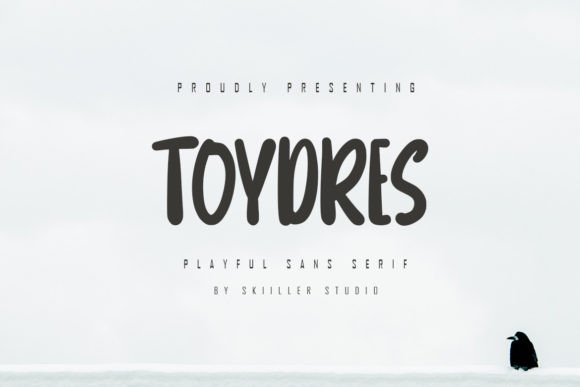
Prepare to be mesmerized by Toydres, the captivating sans serif font family that will transform your creative visions into reality. Experience the joy of crafting captivating designs, banners, flyers, and clothing with the boundless versatility of Toydres. Dive into the world of Toydres and discover a font that's not just visually stunning but also a powerful tool for effective communication.
With Toydres by your side, your designs will transcend the ordinary and capture the attention of your audience. Its meticulously crafted curves and clean lines exude a timeless elegance that adds a touch of sophistication to any project. Whether you're a seasoned designer or just starting your creative journey, Toydres will empower you to create designs that leave a lasting impression.
Unleash your creativity and let Toydres be your guide as you explore new possibilities in design. Its versatility knows no bounds, making it the perfect choice for a wide range of projects. From elegant wedding invitations to dynamic social media posts, Toydres adapts seamlessly to any context. Experience the freedom of expression as you watch your ideas come to life, beautifully rendered in the timeless charm of Toydres.
At the heart of Toydres lies a deep understanding of the power of typography. Its carefully balanced letterforms ensure optimal readability, even in small sizes. Whether you're crafting a captivating logo or a compelling presentation, Toydres ensures that your message is conveyed with clarity and impact. Let your words dance across the page, carried by the graceful strokes of Toydres, and witness the transformation of your ideas into unforgettable experiences.
Embrace the beauty of Toydres and unlock a world of creative possibilities. Its user-friendly design makes it accessible to both seasoned professionals and those new to the world of typography. Let Toydres be your creative companion as you embark on a journey of self-expression and design brilliance. Experience the joy of creating with a font that truly understands the language of beauty and communication.
Join the growing community of designers who have discovered the magic of Toydres. With its timeless elegance and boundless versatility, Toydres is the perfect choice for those who demand excellence in their creative pursuits. Elevate your designs to new heights and create a lasting impact with Toydres, the font that will forever change the way you communicate.